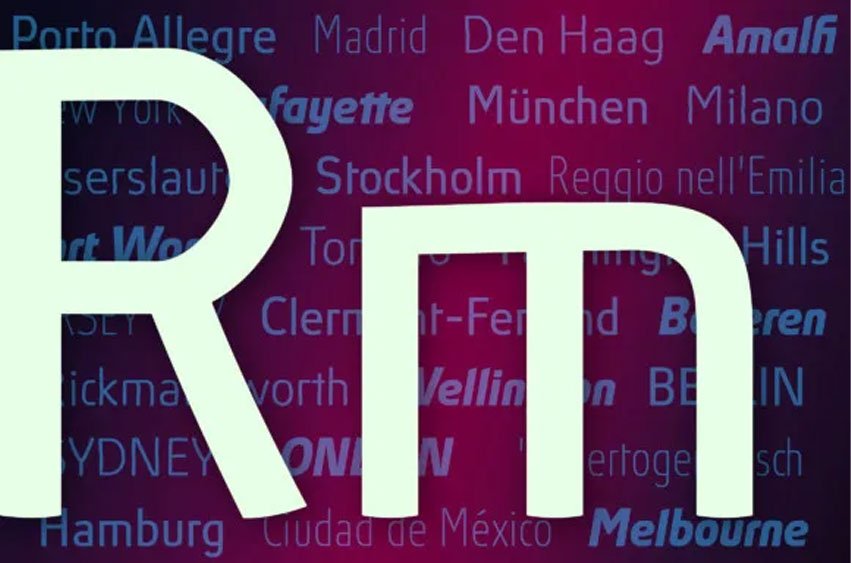
Absolut Font is the modern sans serif for the new millenium, reduced to the essentials — pure typeface: modern, uncompromising, prosaic, aesthetical.
Absolut is a modern sans serif without compromise!